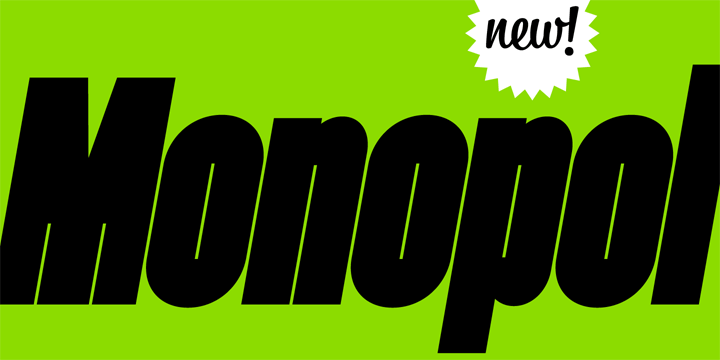
Monopol Font excels in various design applications including dominant corporate branding, market leader logos, exclusive luxury materials, monopolistic business communications, premium brand identities, commanding advertising campaigns, authoritative presentations, and elite corporate documentation. This commanding typeface adapts powerfully to both dominant digital platforms and exclusive print materials, making it perfect for designers seeking market dominance and monopolistic sophistication in their visual communications.
Monopol Font generates excitement among design professionals due to its dominant character and exclusive styling that instantly conveys market leadership and monopolistic authority. The font's commanding letterforms and exclusive proportions create an immediate sense of market dominance and corporate supremacy. Its monopolistic personality makes it particularly appealing for brands wanting to communicate market leadership, exclusive control, and dominant positioning in their visual identity.
The Monopol Font family encompasses multiple weights and styles including Regular, Bold, Light, Dominant, and Condensed variations. Each family member maintains monopolistic design principles while offering distinct commanding characteristics. The Light weight provides subtle dominance for sophisticated applications, while the Dominant version delivers maximum impact for authoritative headlines and monopolistic brand statements.
Corporate designers frequently choose Monopol Font Free Download for projects requiring both market authenticity and commanding distinction. This typeface demonstrates exceptional effectiveness across business industries including corporate giants, market leaders, exclusive brands, and dominant companies. Its monopolistic character allows organizations to communicate market supremacy while maintaining excellent readability and commanding visual appeal that reflects the power and authority of market leadership.